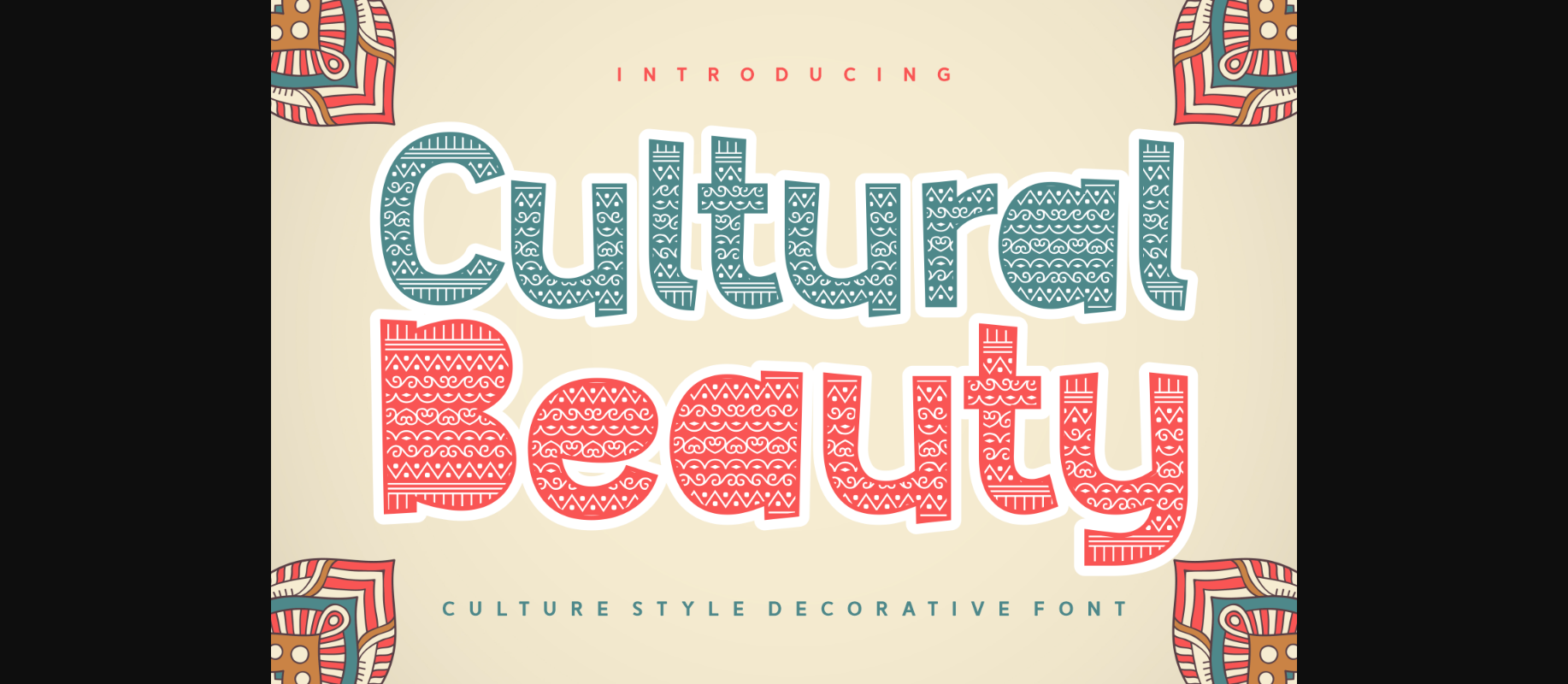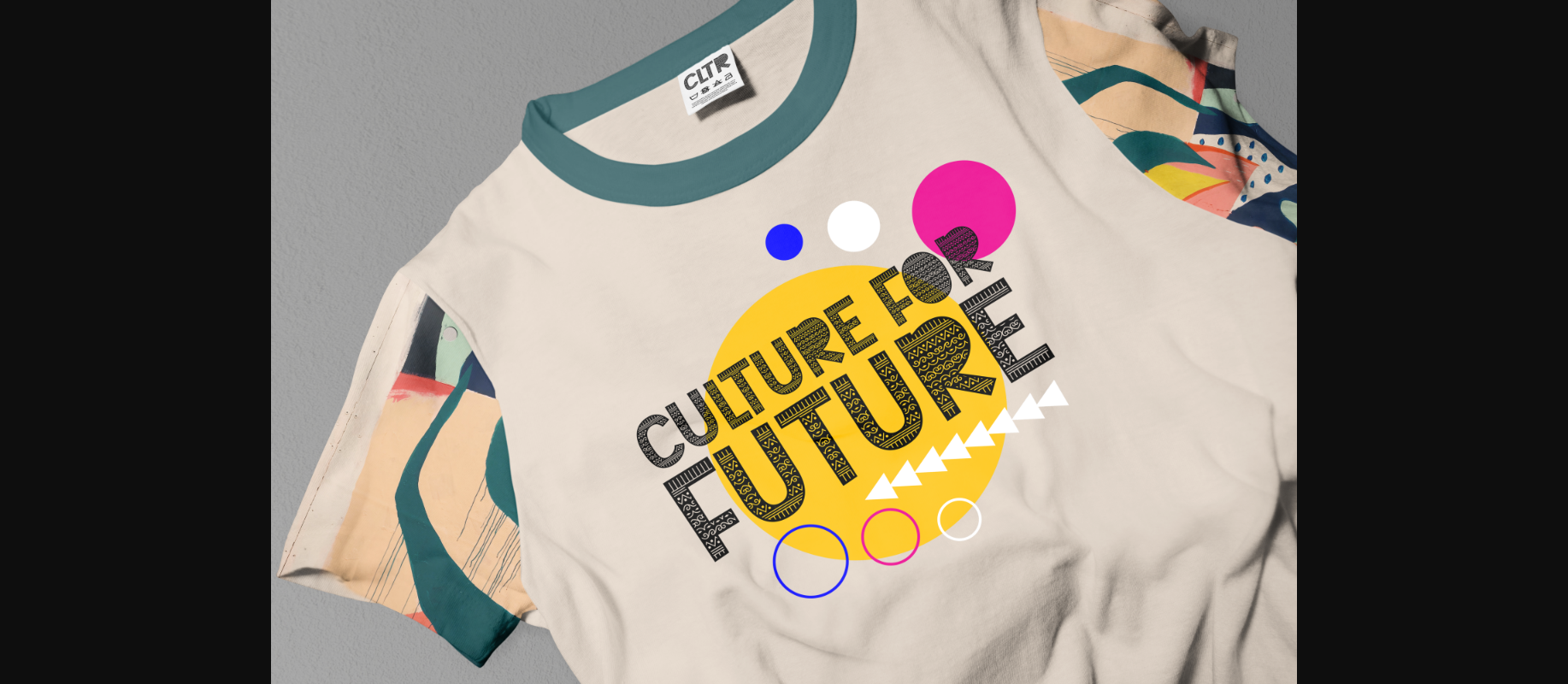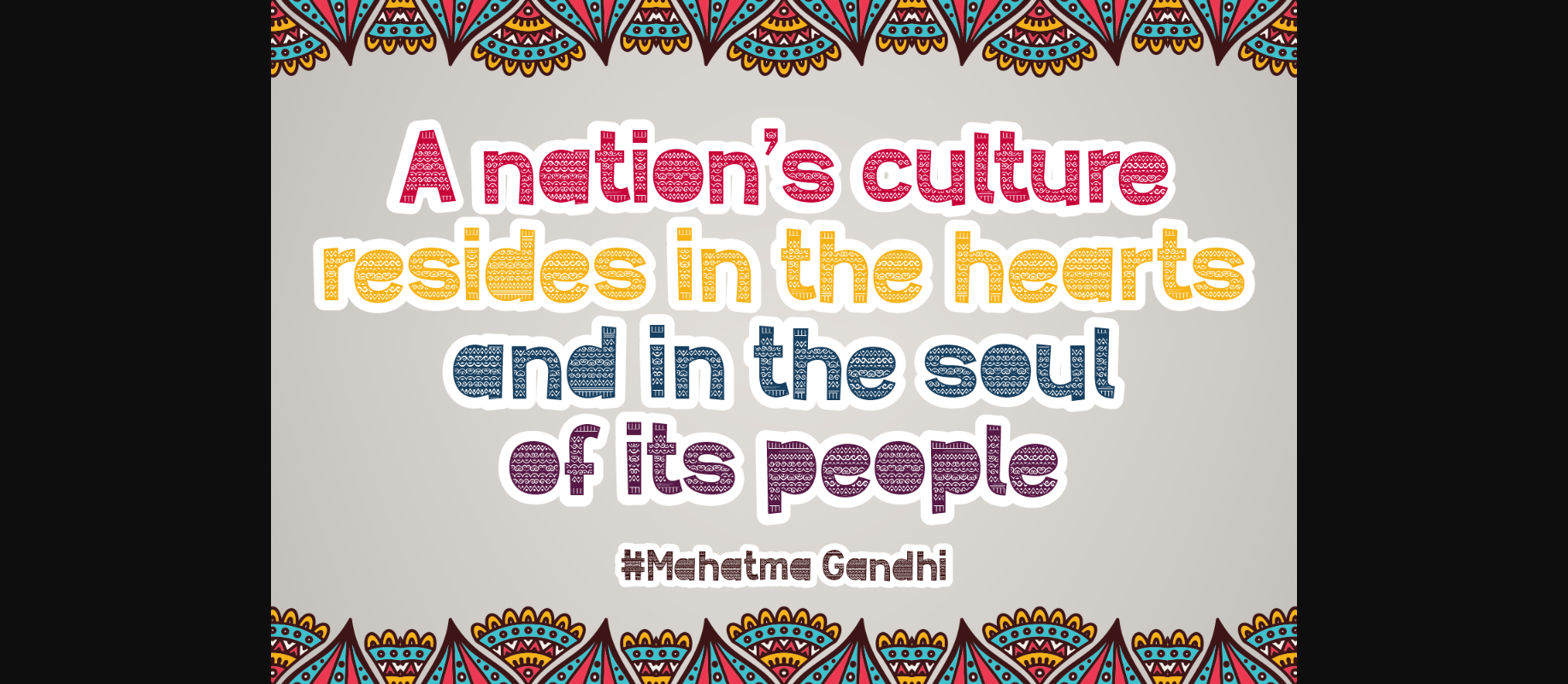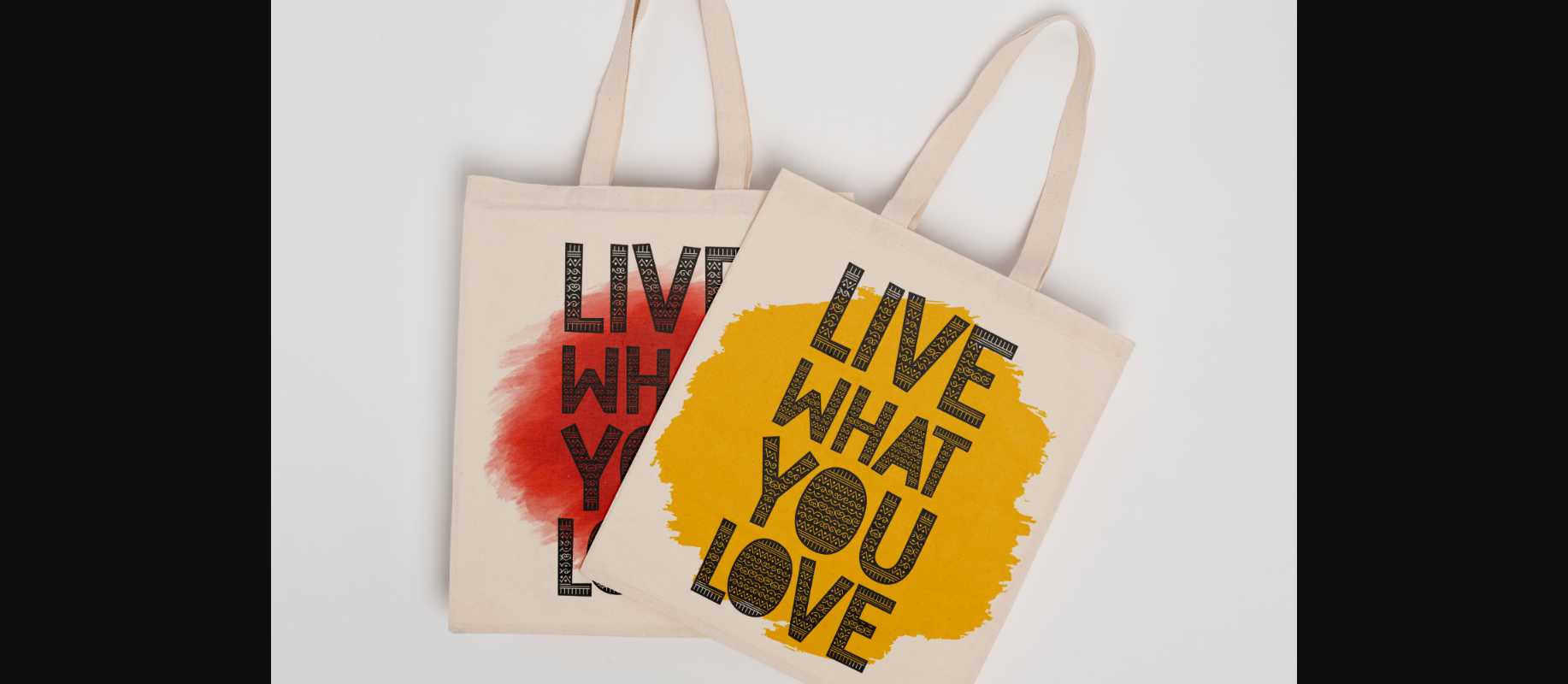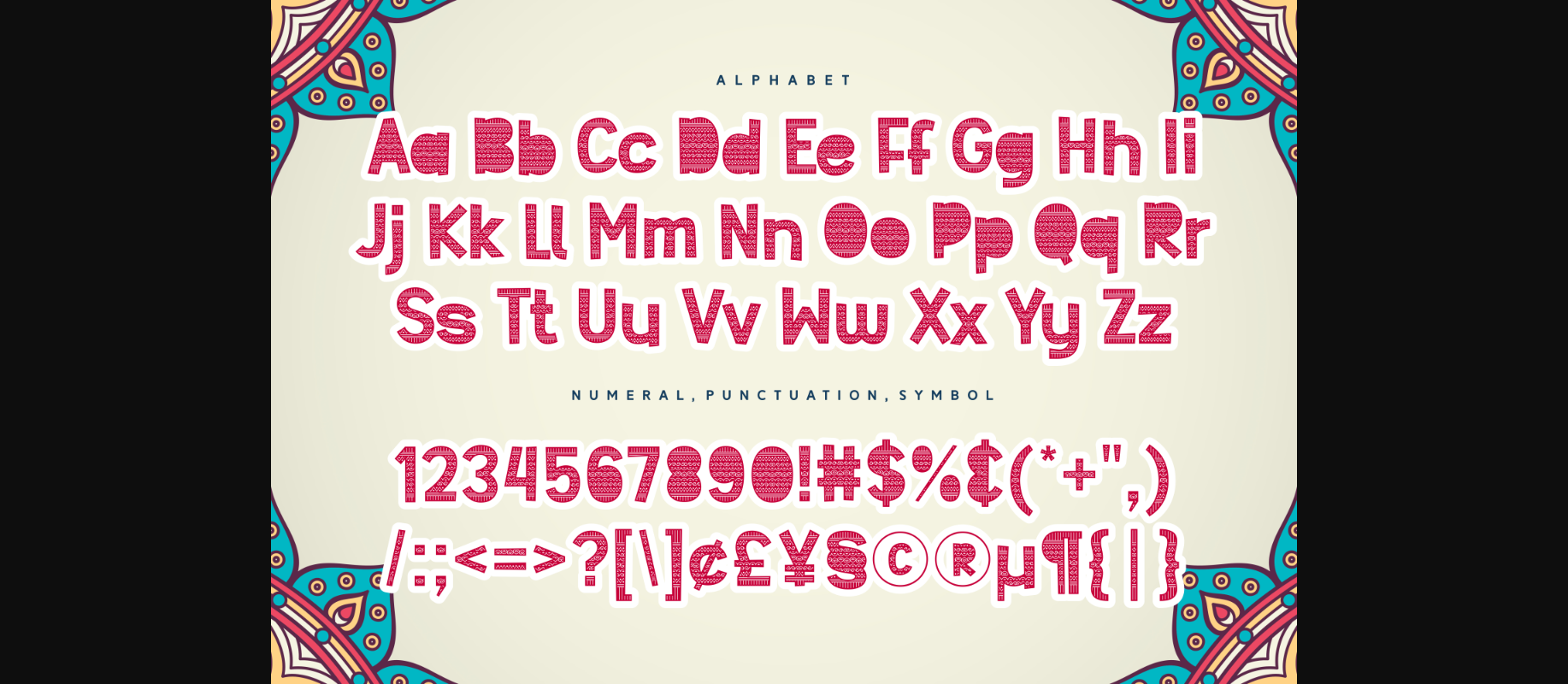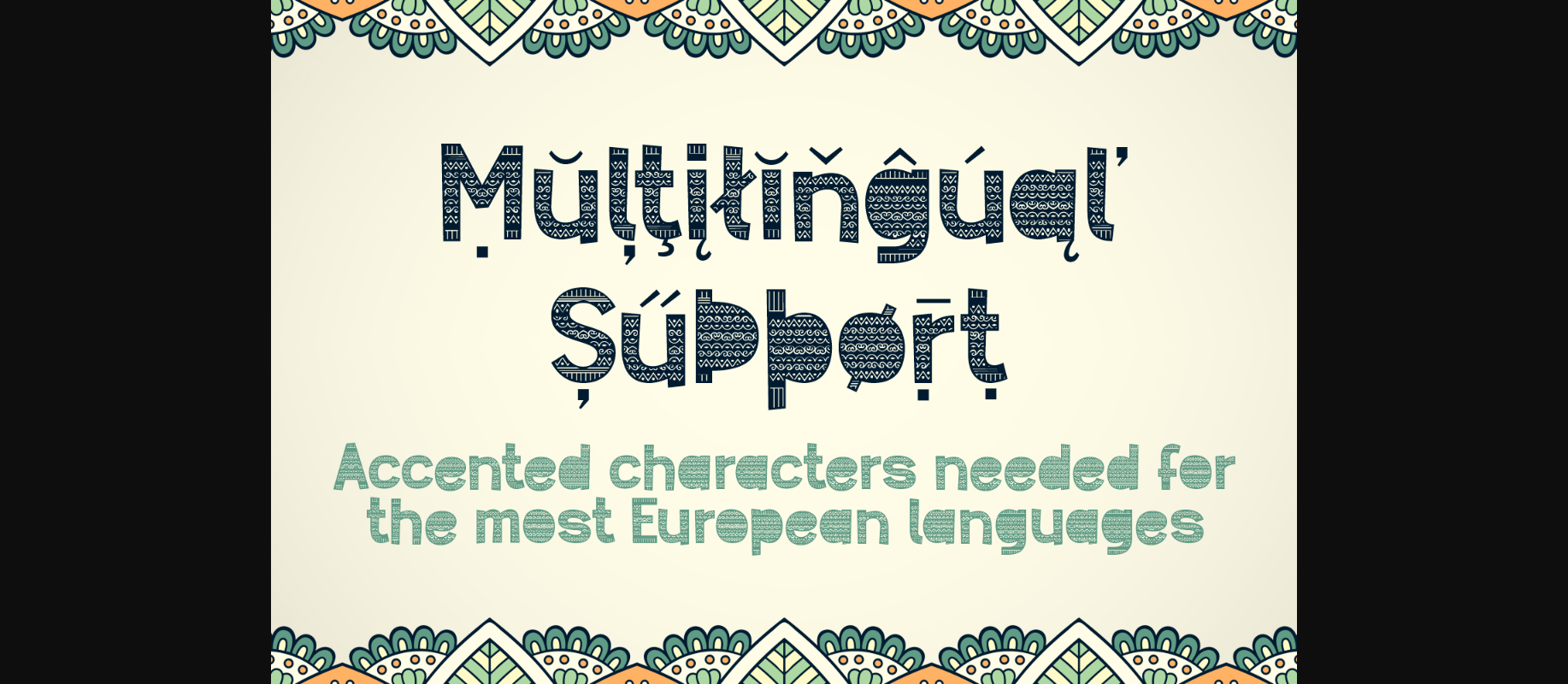
Cultural Beauty Font
About Cultural Beauty Font
Cultural Beauty is an incredibly unique decorative font featuring letters decorated with lovely creative patterns. Use this unique typeface to make your work stand out!